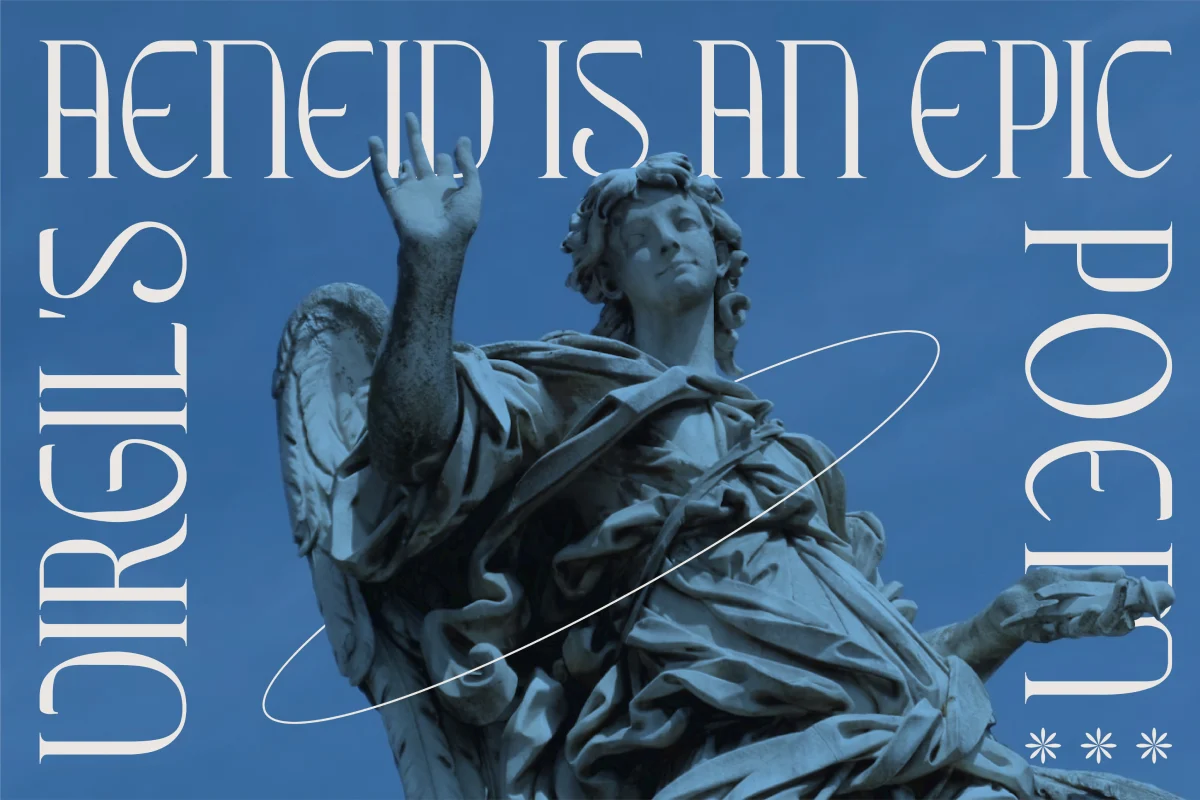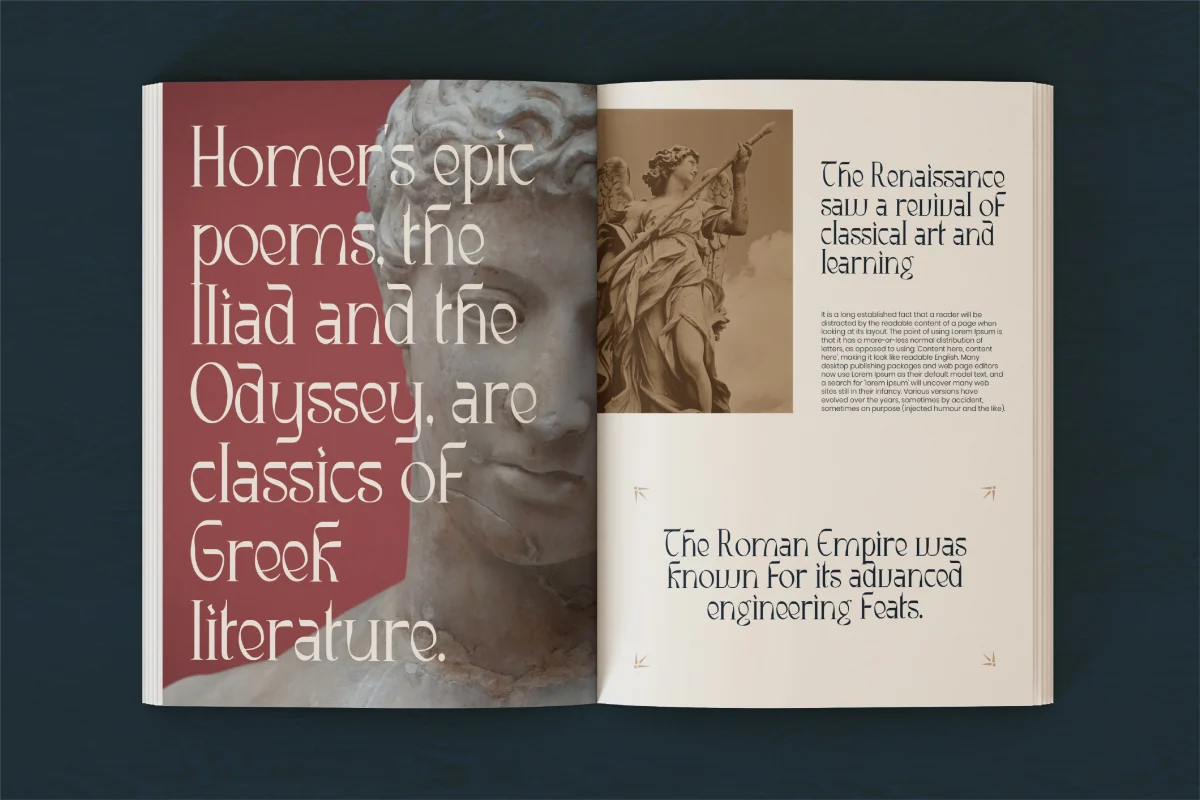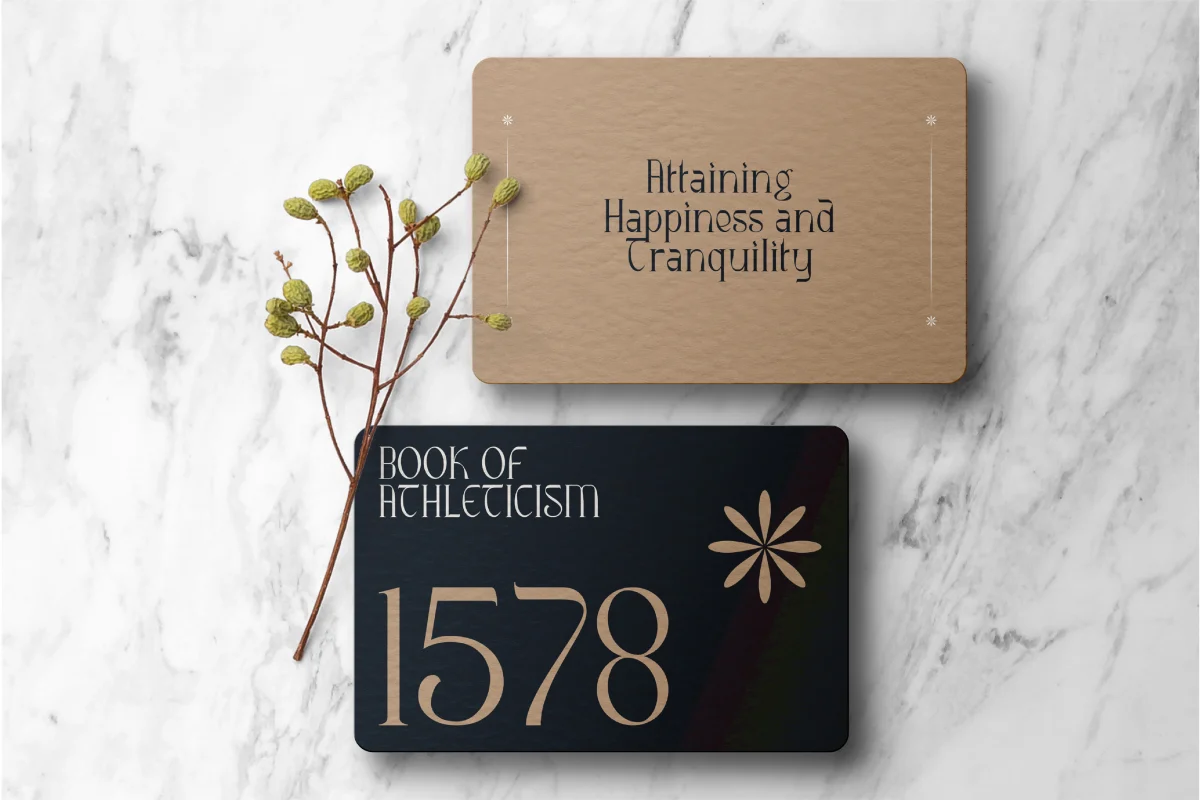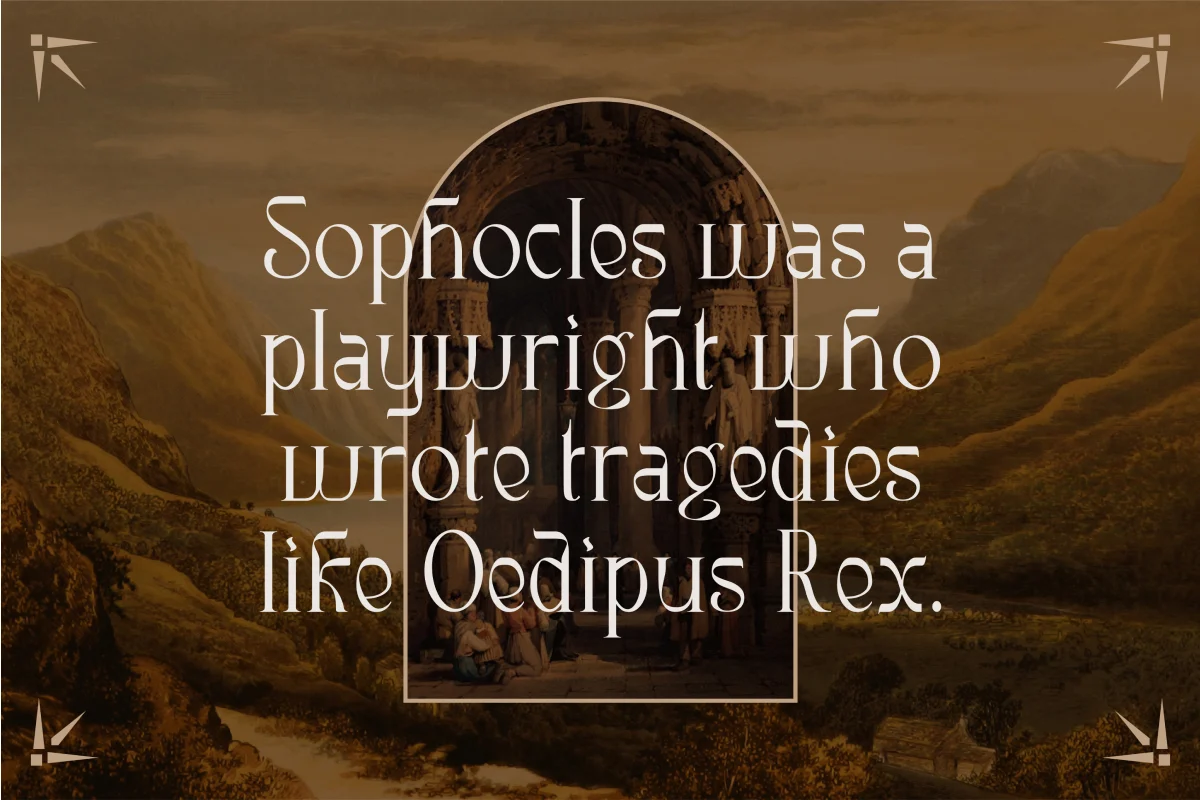
Ribgy Luxury Serif Font
Ribgy Stylish Serif Font Ribgy is a classic stylish serif font designed to bring timeless beauty to your typography. With artistic curves and strong character, this font is perfect for luxury brand identity, wedding fonts, signature logo, or any project that requires a high-end, feminine yet professional look. Ribgy blends elegant luxury with a decorative touch, offering a perfect balance between sophistication and bold personality. Its display serif qualities and multilingual support make it ideal for global branding, editorial work, and creative visuals in fashion, art, or upscale business design.
- Ligatures & Alternate
- Numeral & Punctuations